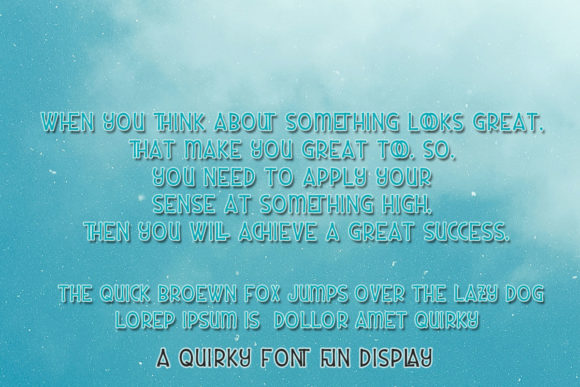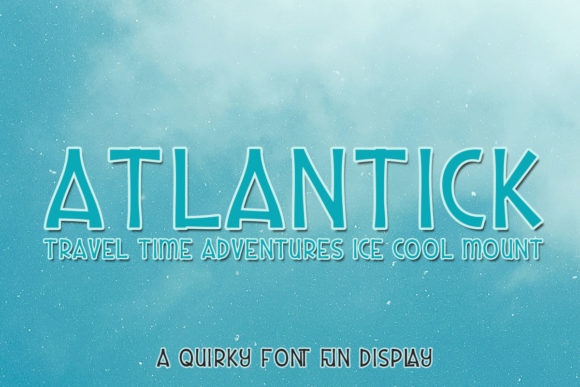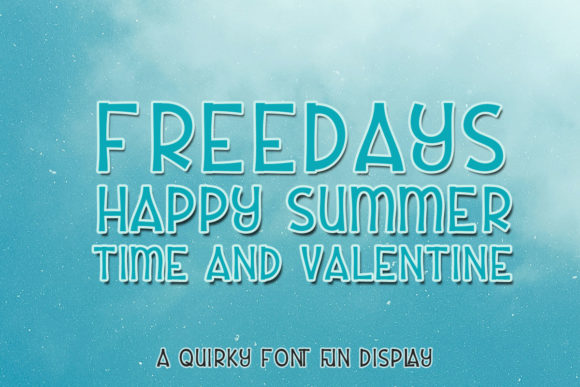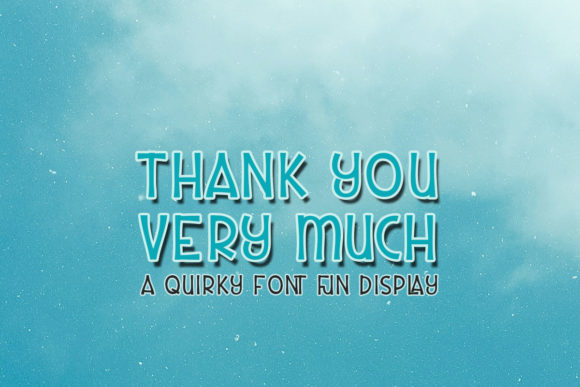
Introduction to Charming Beauty Font Font
Fonts play a crucial role in design, and the Charming Beauty Font font is a typeface that brings both character and versatility to any project. Whether you’re working on a branding project, a website, or a print design, the Charming Beauty Font font offers a unique style that can elevate your work.
Charming Beauty is an incredibly unique, tall and daring display font.
Add it confidently to your projects, and you will love the results .
The Charming Beauty Font font is more than just a typeface – it’s a design tool that helps you communicate your message with style and clarity. Its unique character set and versatile design make it suitable for a wide range of applications, from elegant invitations to bold headlines.
With its carefully crafted letterforms and balanced proportions, the Charming Beauty Font font ensures readability and visual appeal across all mediums.
What makes Charming Beauty Font font special?
The Charming Beauty Font font stands out with its unique design, exceptional readability, and versatility across various design applications.